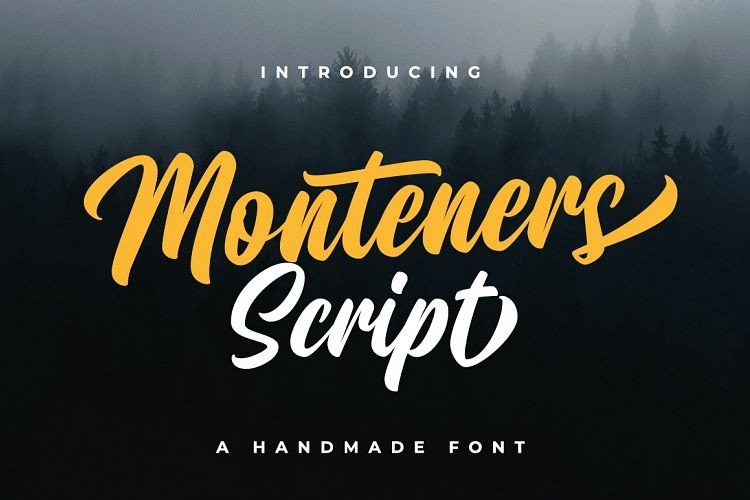
Monteners Script Font
Dear All. This is new Bold Script Retro handmade style font. A bold script font that inspired by hand lettering stylistic with modern calligraphy. Introducing Monteners Font. It’s designed and shared by Suby Studio.
Monteners Bold Script is a beautiful and elegant script font. It is suitable for any design project such as logo, branding, poster, header, card, custom mug, pillow, t-shirts, and any project design purpose.